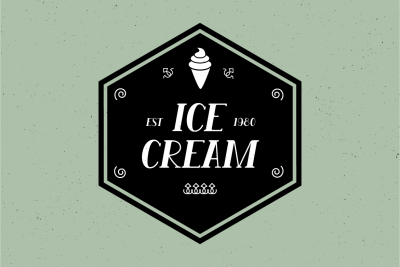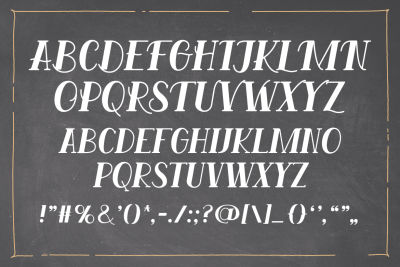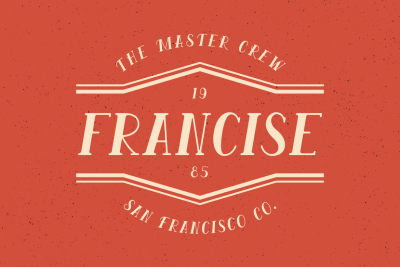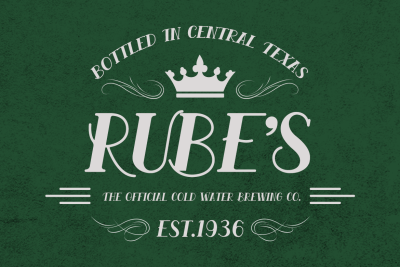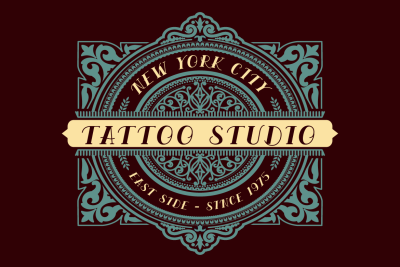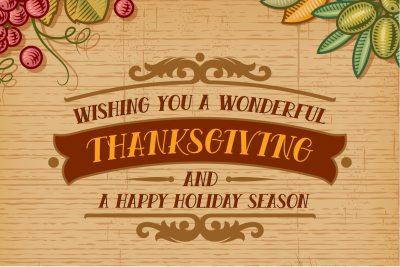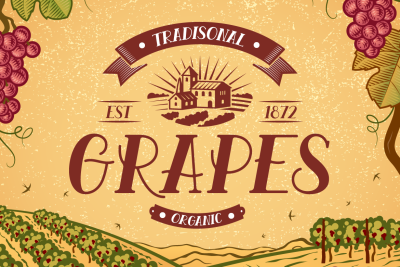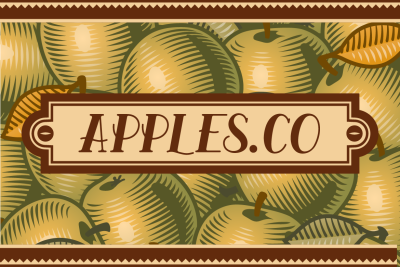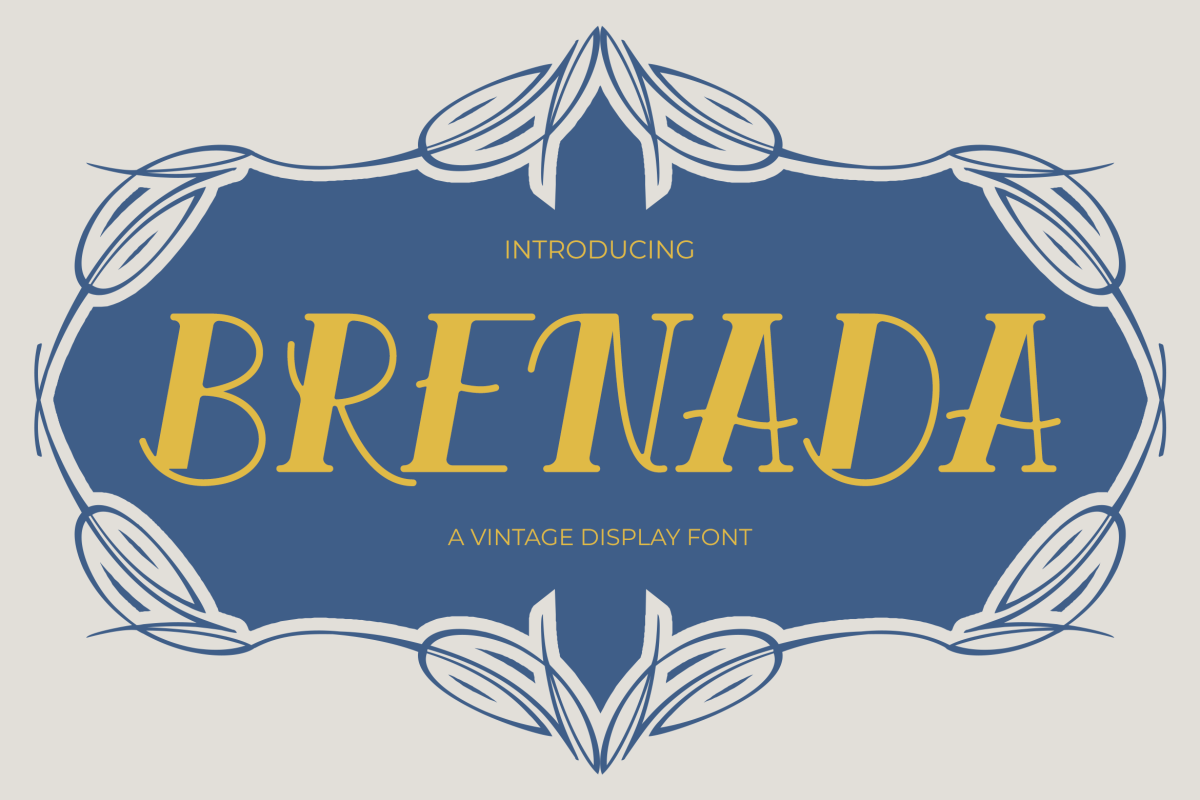
Tattoo font Brenada is a vintage-inspired display typeface with a touch of elegance and charm. Its unique letterforms combine classic serif design with a modern twist, creating an eye-catching look. Additionally, the graceful curves and sharp, clean lines offer a perfect balance between tradition and contemporary style. As a result, this font has a timeless feel, making it ideal for projects that need both sophistication and personality.
Moreover, the hand-crafted aesthetic of Brenada works well across different mediums. It not only adds class but also provides a bold, decorative style, especially in large headlines and tattoo designs. Its flowing curves and structured lines immediately capture attention, giving your projects a vintage yet fresh appeal. Whether you want a retro vibe or a modern twist, Tattoo font Brenada delivers both style and versatility.
Tattoo Font Brenada Perfect For
Tattoo font Brenada is ideal for designers, tattoo artists, and creatives who seek a vintage and elegant touch. Its delicate curves and bold lines are perfect for crafting custom tattoo designs. Furthermore, tattoo artists can use Brenada to create eye-catching lettering and script-based tattoos that stand out with sophistication.
In addition, this font is well-suited for event invitations, particularly for weddings or formal gatherings. Its decorative nature adds luxury to projects like event branding, logos, or product packaging. Businesses focused on vintage or artisan themes, such as boutique stores or cafes, will find Brenada perfect for establishing an elegant yet approachable brand.
Additionally, Brenada works beautifully in both print and digital design. Itโs ideal for posters, book covers, or any project where a standout headline is needed. The font offers versatility and style, helping designers create visuals with a timeless, classic appeal. Whether for branding, artistic projects, or tattoos, Tattoo font Brenada adds a polished touch to any creative endeavor.
In conclusion, Tattoo font Brenada blends vintage charm with modern versatility. Itโs perfect for tattoo artists, designers, and anyone seeking both sophistication and creativity. Its classic serif design and bold elements make it an excellent choice for elegant and unique designs.